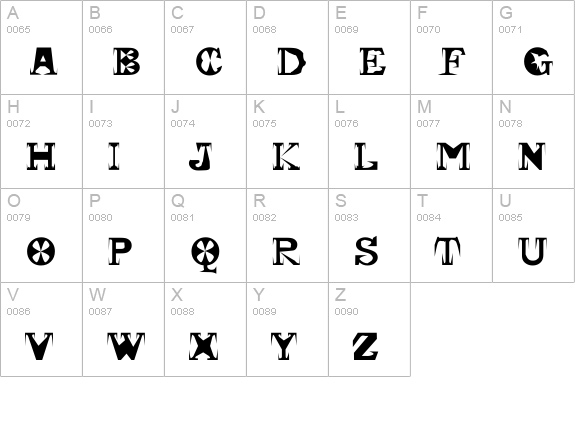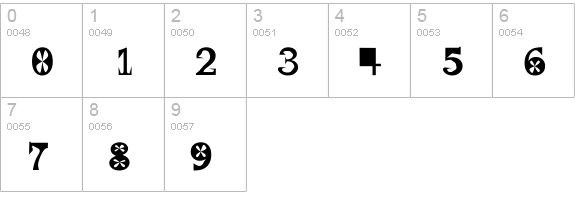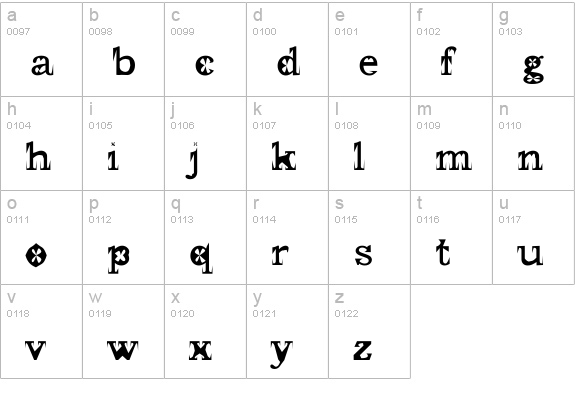
Gscript Font Details
Introducing Gscript font, a modern and elegant typeface that will add a touch of sophistication to your designs. With its sleek lines and stylish curves, Gscript is perfect for creating eye-catching logos, branding materials, and more. This versatile font is ideal for a wide range of projects, from business cards to website headers. And the best part? Gscript font is completely free! You can easily download it at FontsMarket.com and start using it in your projects right away. Don't miss out on this incredible opportunity to elevate your designs with this beautiful and versatile font. Download Gscript today and take your creativity to the next level!